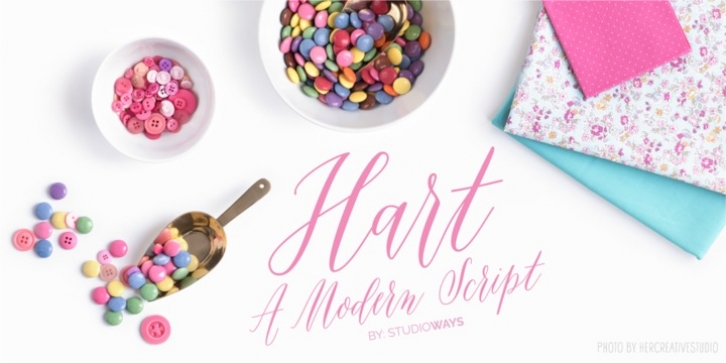
Publisher: Studioways
Hart was designed by Jim Lyles, Eliza Gwendalyn, Virginia Lucas Hart and published by Studioways. Hart contains 1 style.
Say hello to Hart!
Hart is a modern connecting script typeface based off of Virginia Lucas Hart's signature calligraphy style. This fun script is packed with ligatures and alternate letterforms and cute glyphs so precious that it will melt almost any font lover's heart!
OpenType functionality will automatically insert ligatures when certain glyph combinations are typed, and the OpenType swash feature will replace some beginning and ending letters with nice gentle swash alternatives. There are three cute ornaments, a heart, a letter and an arrow, which you can access either by enabling the Ornament feature, if your app supports it, and typing 1, 2 or 3. If not, you can access them via the glyph panel.